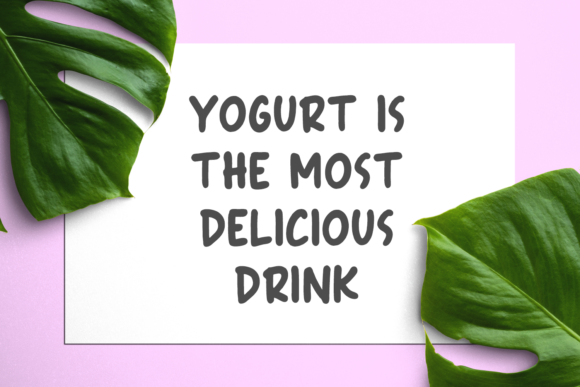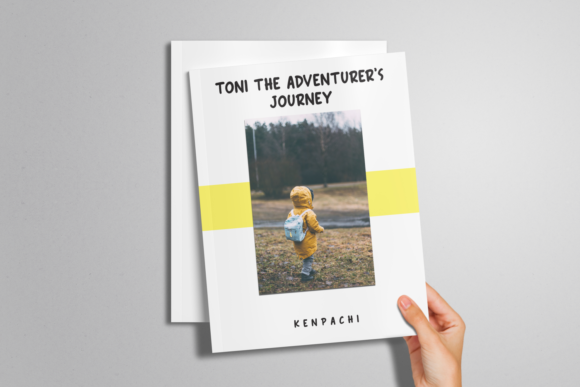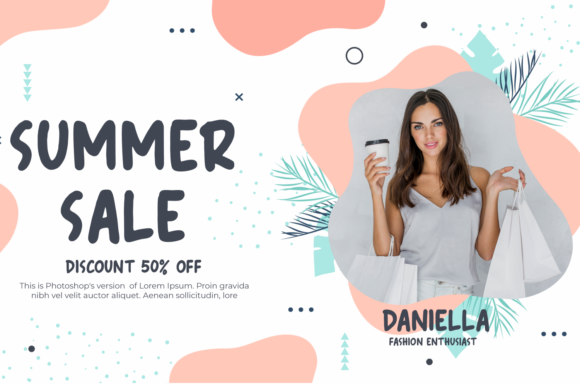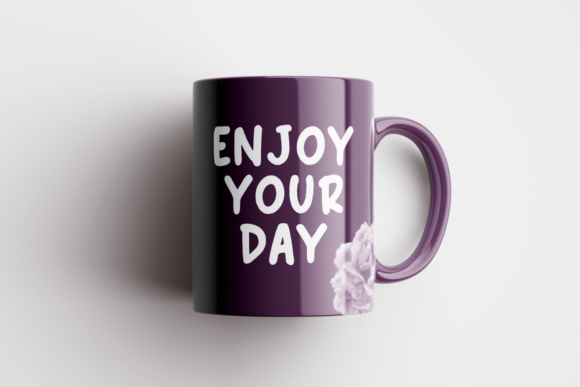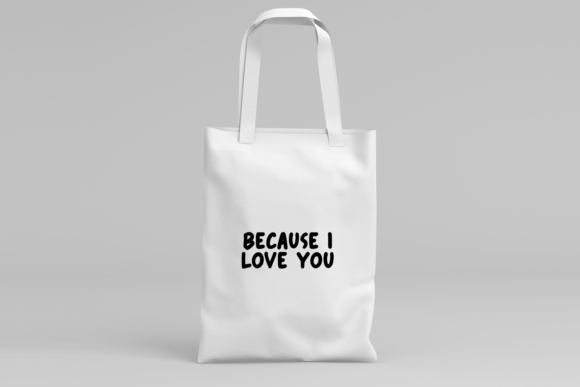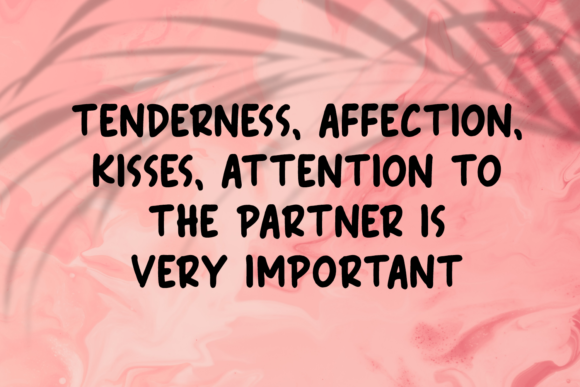
Cream Yoghurt Font: The Fun and Quirky Display Font You Need
Are you tired of using the same old fonts for your designs? Do you want to add a touch of whimsy and personality to your creations? Look no further than the Cream Yoghurt font! This fun and paint-brushed display font is sure to make your designs stand out from the crowd.
What is Cream Yoghurt Font?
Cream Yoghurt is a unique and eye-catching display font that is perfect for designers and crafters who want to add a playful touch to their work. With its simple yet strong visual effect, this font is sure to instantly elevate your creations and make them more appealing to your audience.
Key Features of Cream Yoghurt Font
- Fun and Quirky Design: Cream Yoghurt font has a fun and quirky design that is sure to add a touch of personality to your designs.
- Paint-Brushed Effect: The font has a paint-brushed effect that gives it a unique and hand-crafted look.
- Simple yet Effective: Despite its simple design, Cream Yoghurt font has a strong visual effect that is sure to make your designs stand out.
- Display Font: Cream Yoghurt is a display font, making it perfect for headlines, titles, and other prominent text elements.
Why Use Cream Yoghurt Font?
So why should you use Cream Yoghurt font for your designs? Here are just a few reasons:
- Adds Personality to Your Designs: Cream Yoghurt font adds a touch of personality and whimsy to your designs, making them more engaging and interesting to your audience.
- Perfect for Creative Projects: This font is perfect for creative projects such as craft tutorials, DIY blogs, and artisanal product labels.
- Easy to Read: Despite its playful design, Cream Yoghurt font is easy to read, making it perfect for use in titles, headings, and other prominent text elements.
- Versatile: Cream Yoghurt font can be used for a wide range of design projects, from digital graphics to print materials.
How to Use Cream Yoghurt Font
Using Cream Yoghurt font is easy! Here are a few tips:
- Use it as a Display Font: Cream Yoghurt font is perfect for use as a display font, making it ideal for headlines, titles, and other prominent text elements.
- Pair it with Other Fonts: Cream Yoghurt font pairs well with other fonts, making it easy to create visually interesting and dynamic designs.
- Experiment with Colors: The paint-brushed effect of Cream Yoghurt font makes it perfect for use with a wide range of colors and textures.
In conclusion, Cream Yoghurt font is a fun and quirky display font that is sure to add a touch of personality and whimsy to your designs. With its simple yet strong visual effect, this font is perfect for designers and crafters who want to make their creations stand out from the crowd. So why not give Cream Yoghurt font a try and see the difference it can make in your designs?